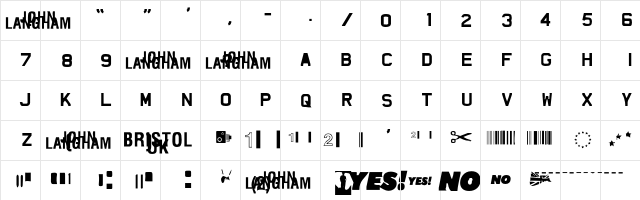
Johndvl Regular
Design Context for Johndvl Typeface
Johndvl offers clean, dependable letterforms without strong stylistic allegiance, making it a practical choice for designers who need flexibility.
Pro Tip: Use Johndvl in both headline and body roles to test its range before committing to a single application.